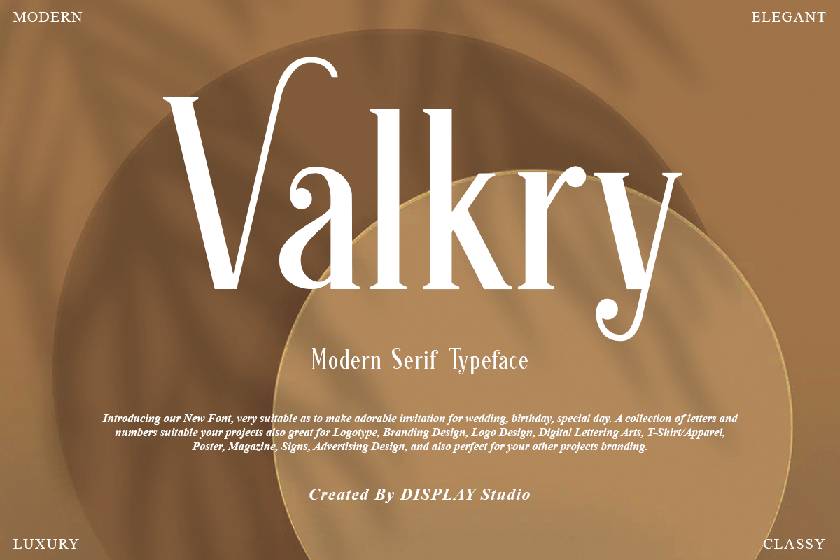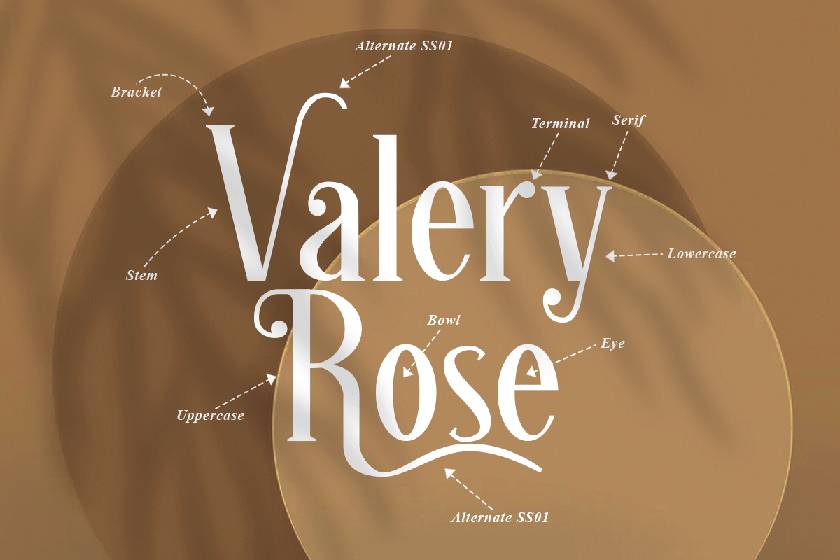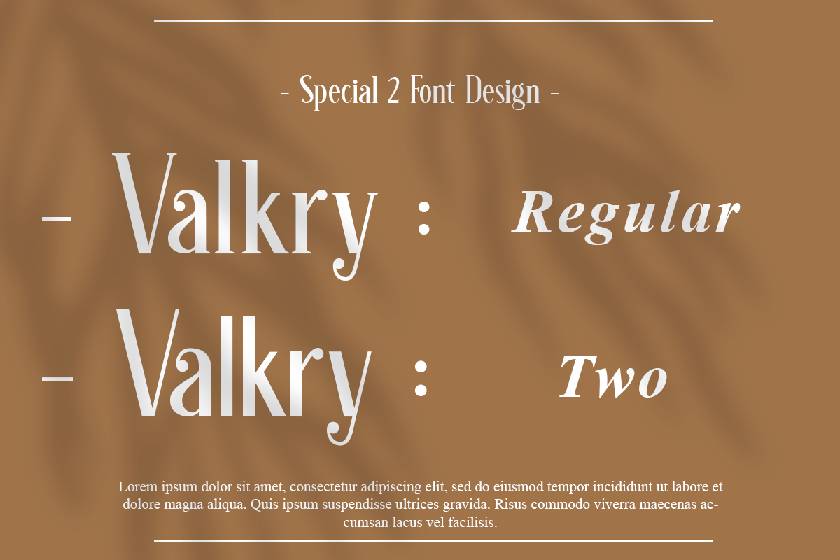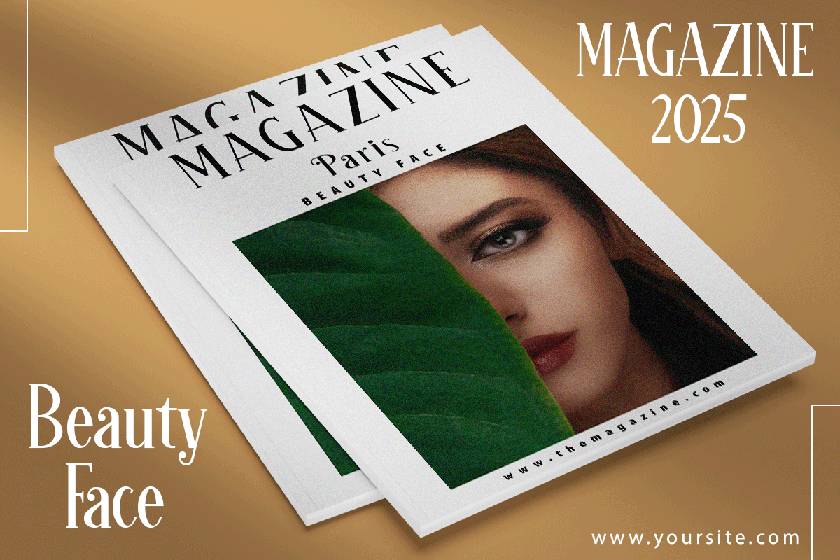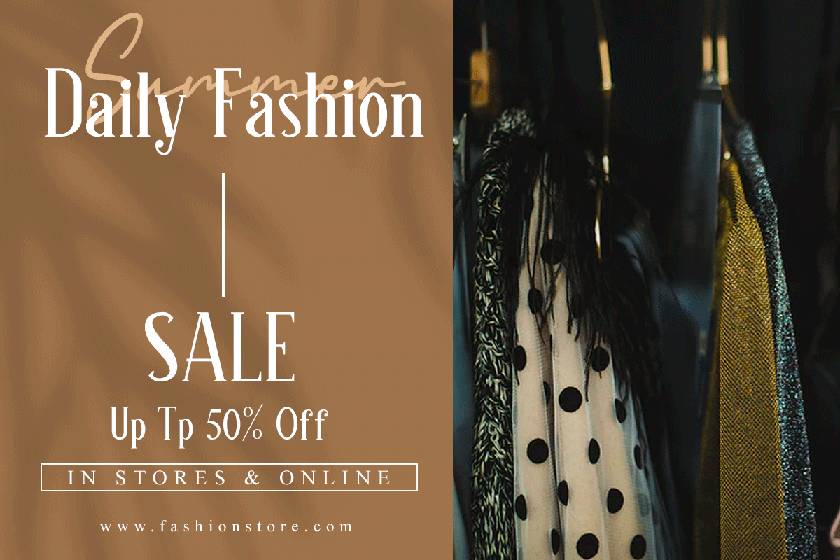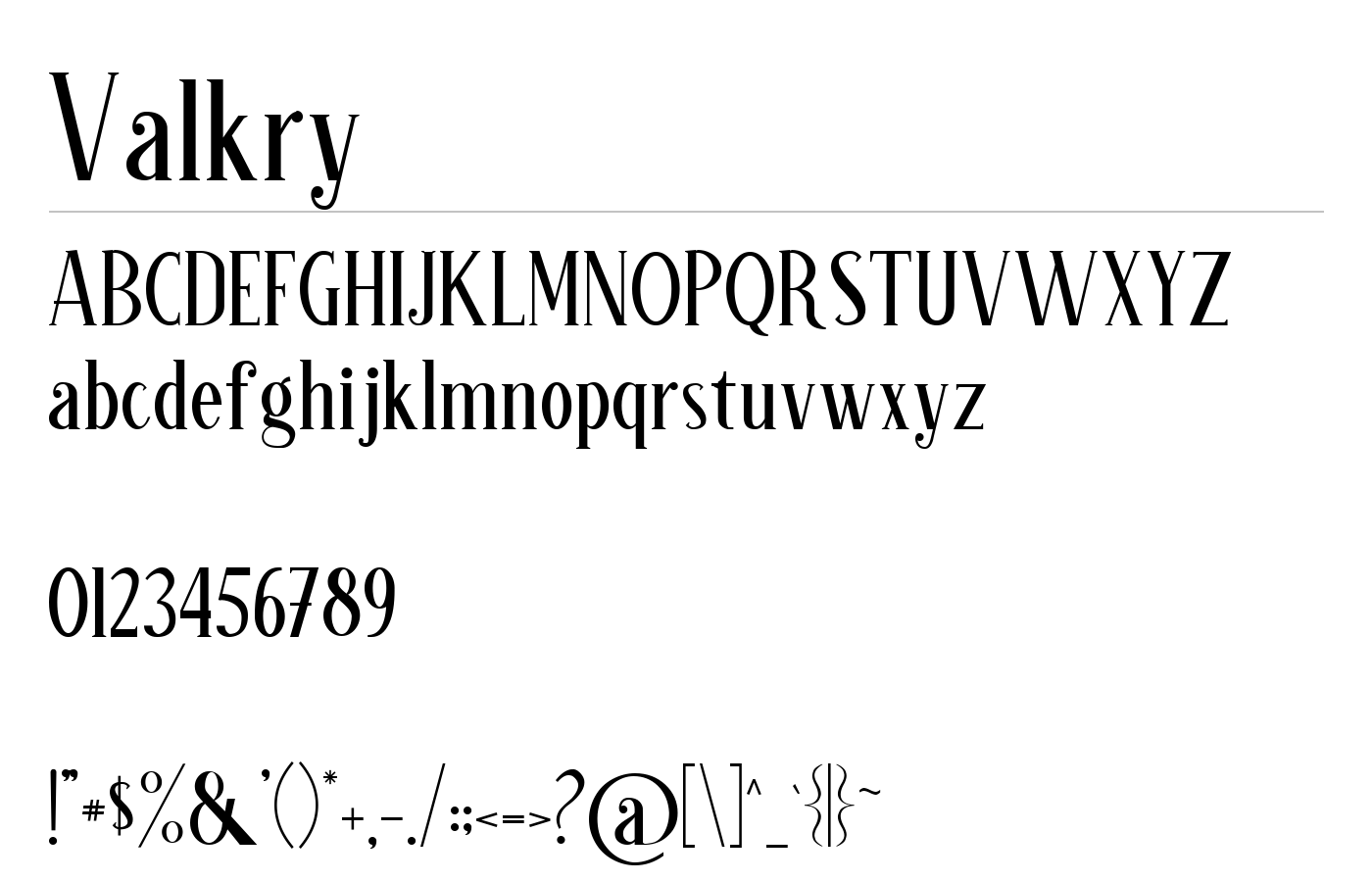
Valkry is a tall, elegant serif typeface with a distinctive modern and refined character. Its slender, high-contrast strokes and delicate bracketed serifs combined with unique details like single-story lowercase a and g give it a sophisticated yet approachable feel. This font works beautifully in editorial design, luxury branding, and headlines where a touch of classic style with contemporary flair is desired.
Valkry Font
About Valkry Font